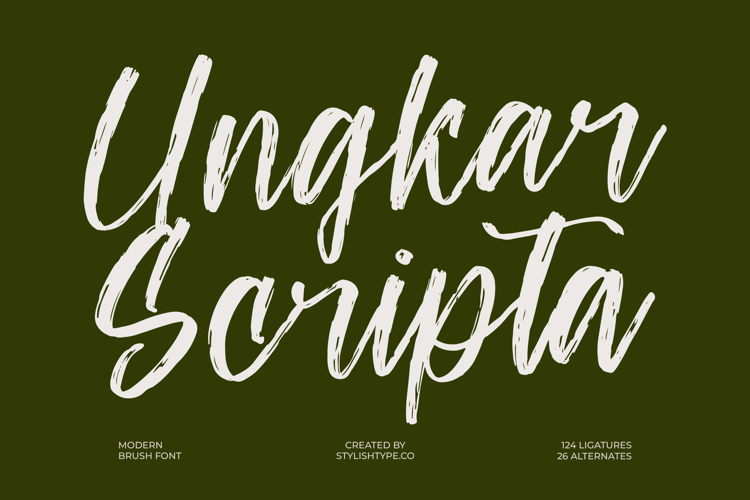
Ungkar Scripta - Modern Brush Font
Ungkar Scripta
Ungkar Scripta Italic
Ungkar Scripta - Modern Brush Font is an energetic display typeface defined by its authentic, dry-brush texture and dramatically sweeping strokes. This font perfectly captures the spontaneity of real hand-lettering, delivering a sense of immediacy and expressive personality that commands attention. Its robust weight ensures maximum visibility, making it the definitive choice for projects demanding both style and substance in a single modern brush font.